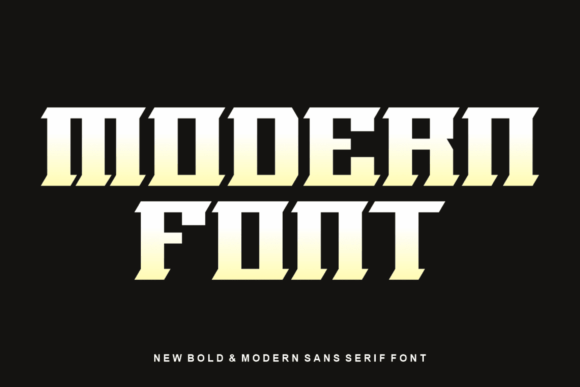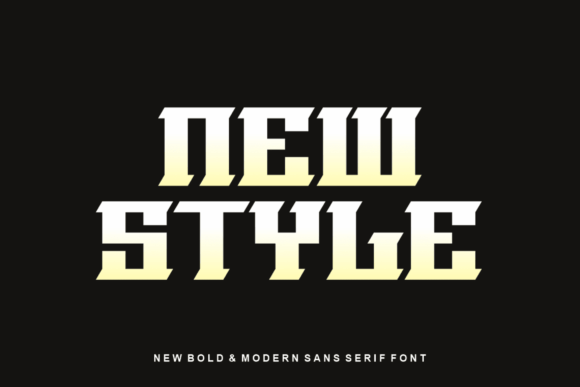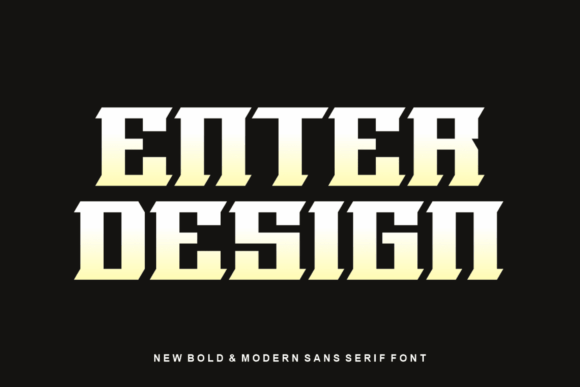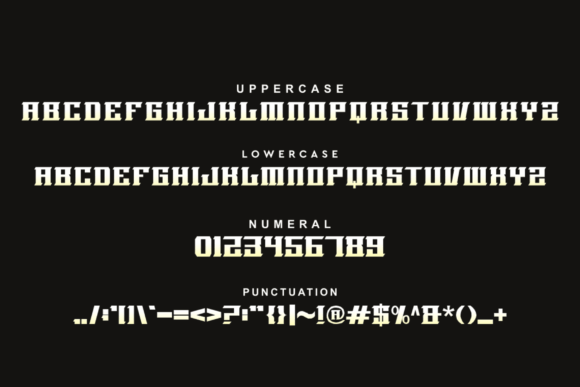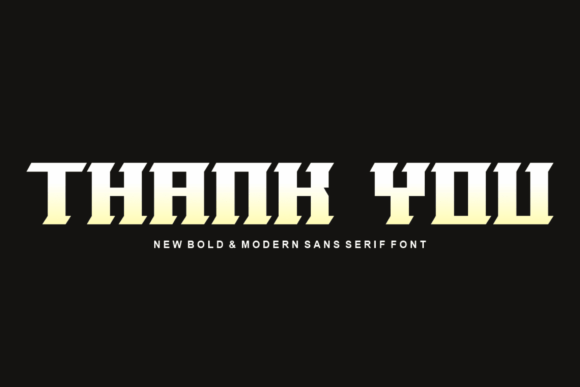
The Ultimate Guide to Gesyum Font: Elevate Your Designs with this Modern Display Font
I’ll never forget the time I was working on a project for a client who wanted a bold, eye-catching font to capture the essence of their brand. I scoured the internet, tried countless fonts, but nothing seemed quite right. That was until I stumbled upon Gesyum Font. This cool and modern display font has been a game-changer for my designs, and I’m excited to share its awesomeness with you! 😊
An Honest Review of Gesyum Font
What I Love About Gesyum Font ✨
- ✅ Unique and Modern Design: Gesyum Font boasts a sleek, contemporary look that’s perfect for making a statement.
- ✅ High Versatility: Its modern design makes it suitable for a wide range of projects, from branding and advertising to packaging and digital media.
- ✅ Excellent Legibility: Despite its bold and artistic style, Gesyum Font remains highly legible, even at smaller sizes.
- ✅ OpenType Features: Gesyum Font comes with a range of OpenType features, including stylistic alternates, ligatures, and glyphs, giving you plenty of creative options.
- ⚠️ Limited Suitability for Body Text: Due to its bold and artistic nature, Gesyum Font might not be the best choice for body text or lengthy paragraphs.
The Backstory of Gesyum Font
Gesyum Font was designed by a team of creative typographers who aimed to create a modern, versatile font that would inspire designers and creatives. The font’s unique design and extensive features have made it a favorite among designers and hobbyists alike.
| Font Name | Gesyum Font |
| Author | kalingga.albert |
| What is Gesyum Font best used for? | Gesyum Font is ideal for display text, headlines, and titles, particularly in branding, advertising, and digital media. |
| Does Gesyum Font come with OpenType features? | Yes, Gesyum Font includes a range of OpenType features, such as stylistic alternates, ligatures, and glyphs. |